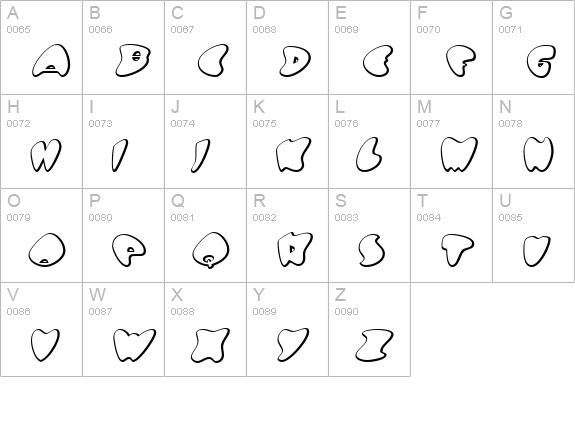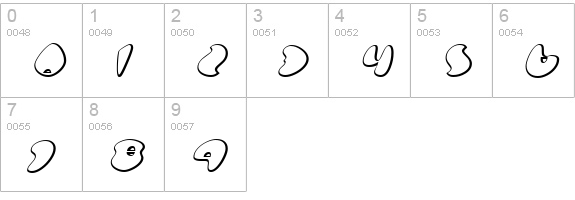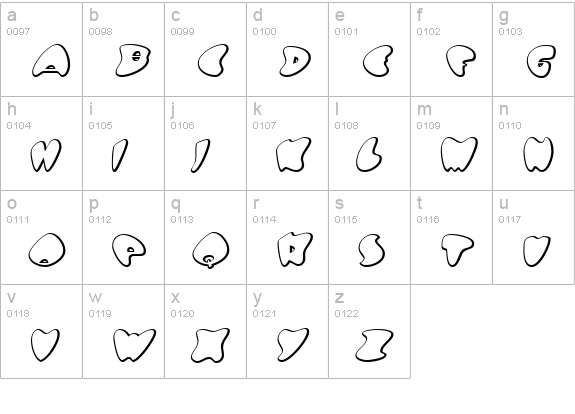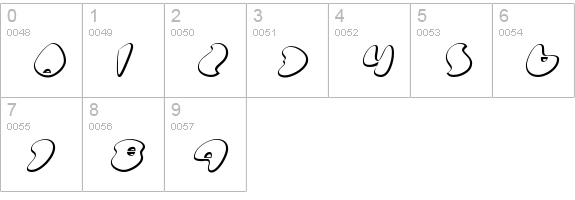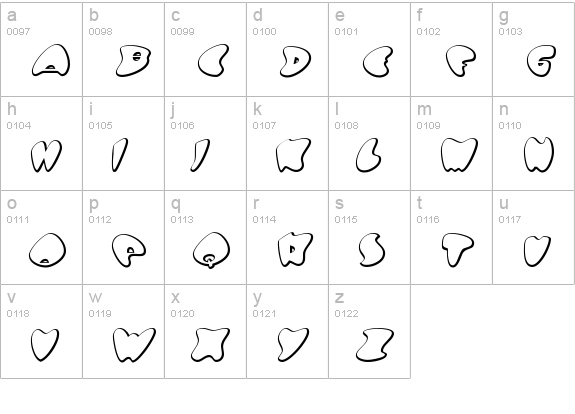
Got No Heart Font Details
Introducing the captivating and bold Got No Heart font, a versatile typeface that exudes strength and personality. With its unique design and powerful presence, this font is perfect for making a statement in your projects. Whether you're working on branding, posters, or social media graphics, Got No Heart will surely grab attention and leave a lasting impression. The best part? Got No Heart is available for free download at FontsMarket.com. That's right, you can easily access this fantastic font without any cost. Don't miss out on the opportunity to enhance your designs with the striking appeal of Got No Heart. Download it today and let your creativity shine!